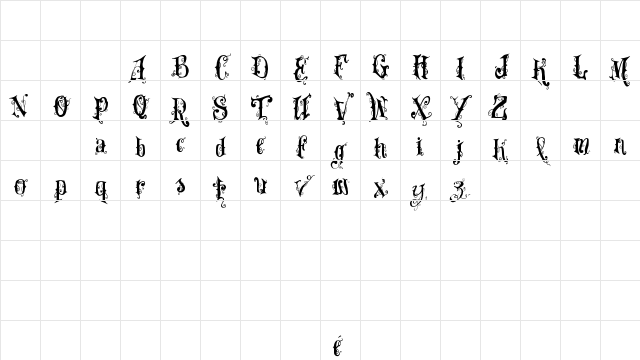
VTKS Dear Love Regular Free Font
VTKS Dear Love Regular
Foundry: Douglas Vitkauskas - www.vtks.com.br
Designer: douglas vitkauskas
Design Context for VTKS Dear Love
VTKS Dear Love is a composed and adaptable typeface that performs quietly and consistently across a wide range of design contexts.